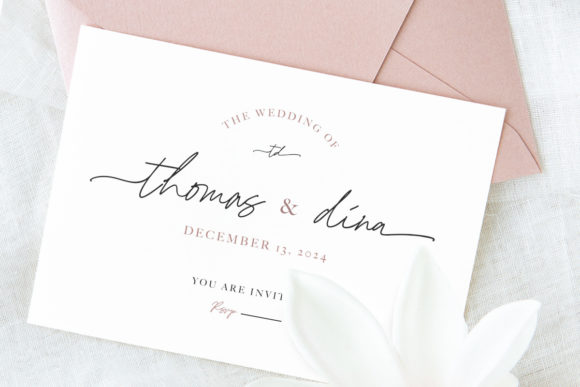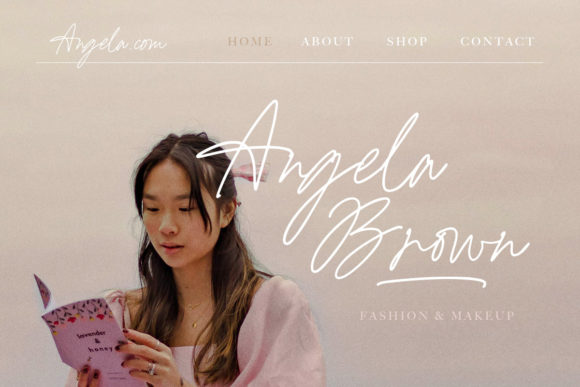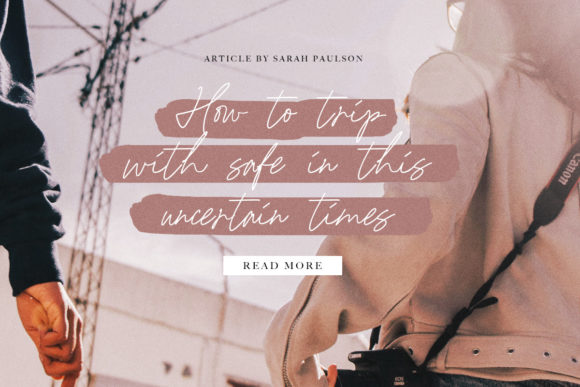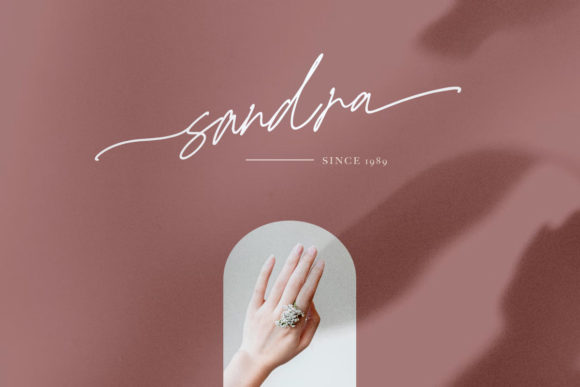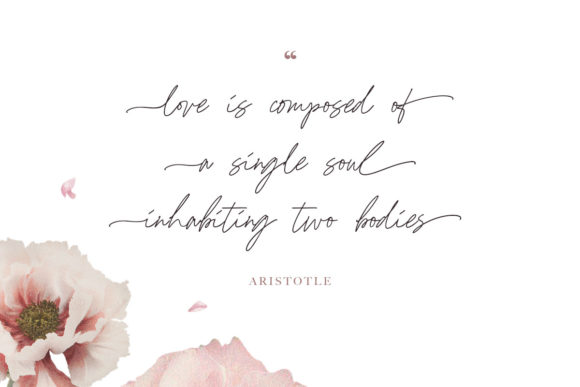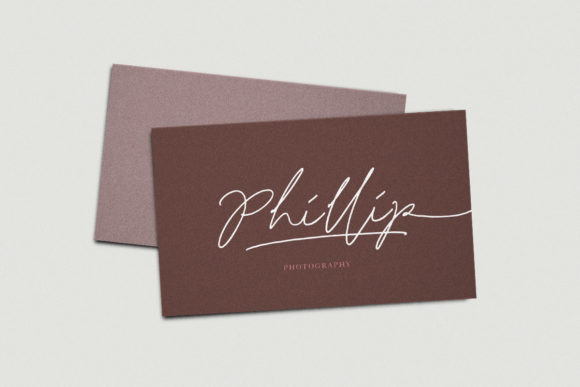
Introduction to Merry Book Font Font
Fonts play a crucial role in design, and the Merry Book Font font is a typeface that brings both character and versatility to any project. Whether you’re working on a branding project, a website, or a print design, the Merry Book Font font offers a unique style that can elevate your work.
Merry Book is a skinny and delicate handwritten font that embodies charm and elegance in every character.
Use it for projects that need lovely, romantic typography .
Key Features of Merry Book Font Font
Why Choose Merry Book Font Font?
The Merry Book Font font is more than just a typeface – it’s a design tool that helps you communicate your message with style and clarity. Its unique character set and versatile design make it suitable for a wide range of applications, from elegant invitations to bold headlines.
With its carefully crafted letterforms and balanced proportions, the Merry Book Font font ensures readability and visual appeal across all mediums.
What makes Merry Book Font font special?
The Merry Book Font font stands out with its unique design, exceptional readability, and versatility across various design applications.